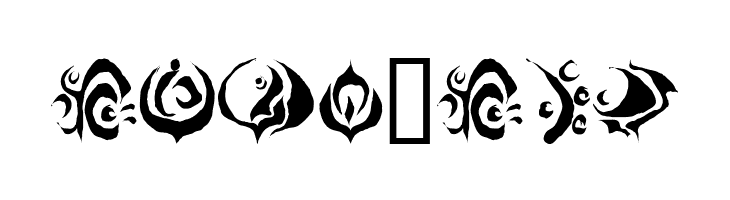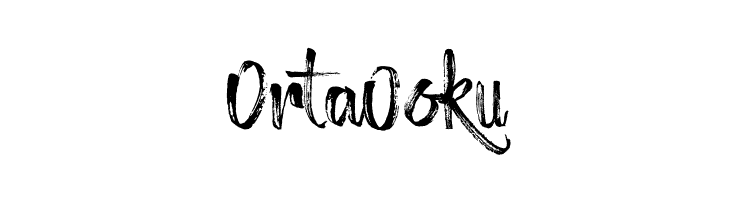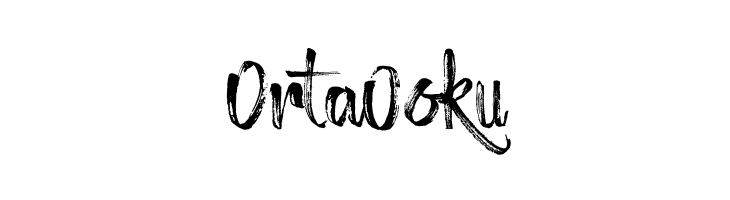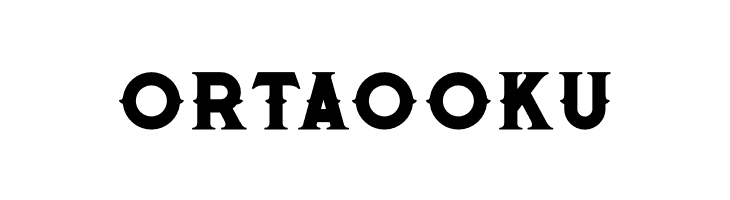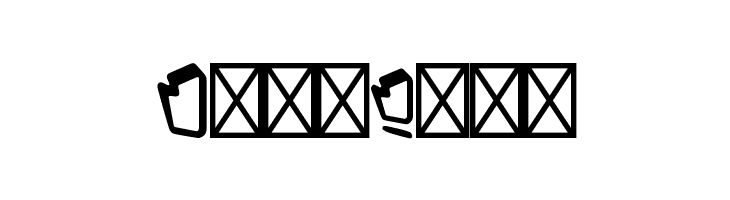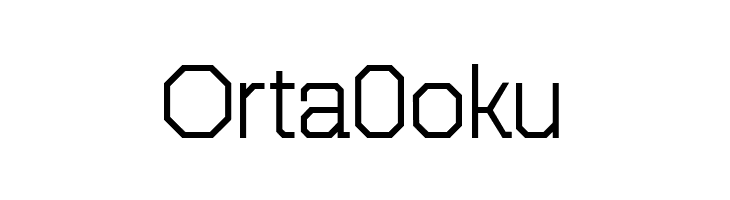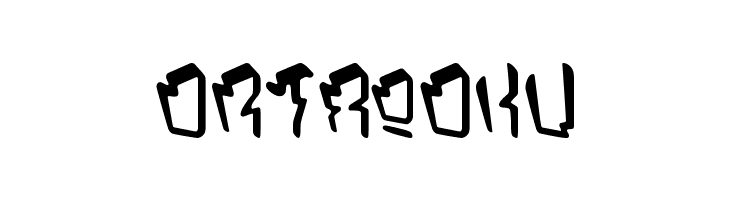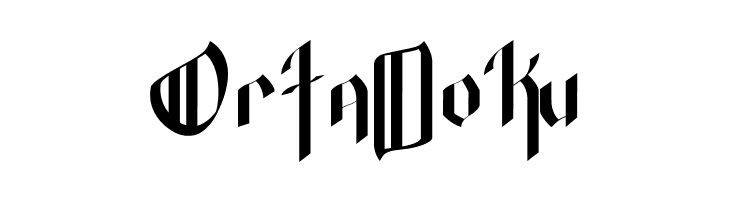
A bold, vintage-style serif font with strong, sharp serifs and a condensed form.
A bold, decorative font with angular serifs and a geometric style.
A bold, expressive brush-style font with dynamic, hand-painted strokes.
A decorative, abstract font with fluid, organic shapes and bold, expressive design.
A futuristic, angular font with bold, geometric shapes.
A playful, bold handwritten font with rounded edges and a casual style.
A bold, brush-stroke font with expressive and dynamic characters.
A bold, angular font with a futuristic and dynamic design.
A bold, blackletter font with sharp, angular strokes and intricate details.
A geometric, octagonal font with a modern and technical style.